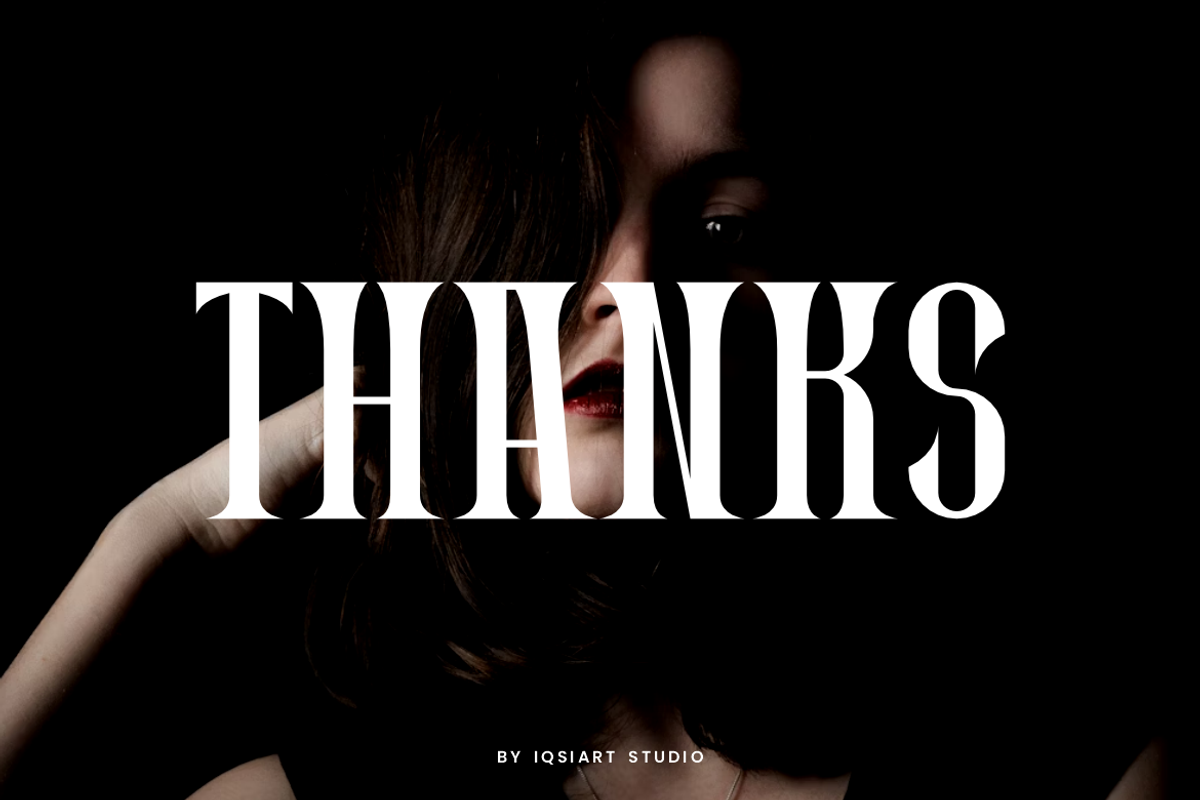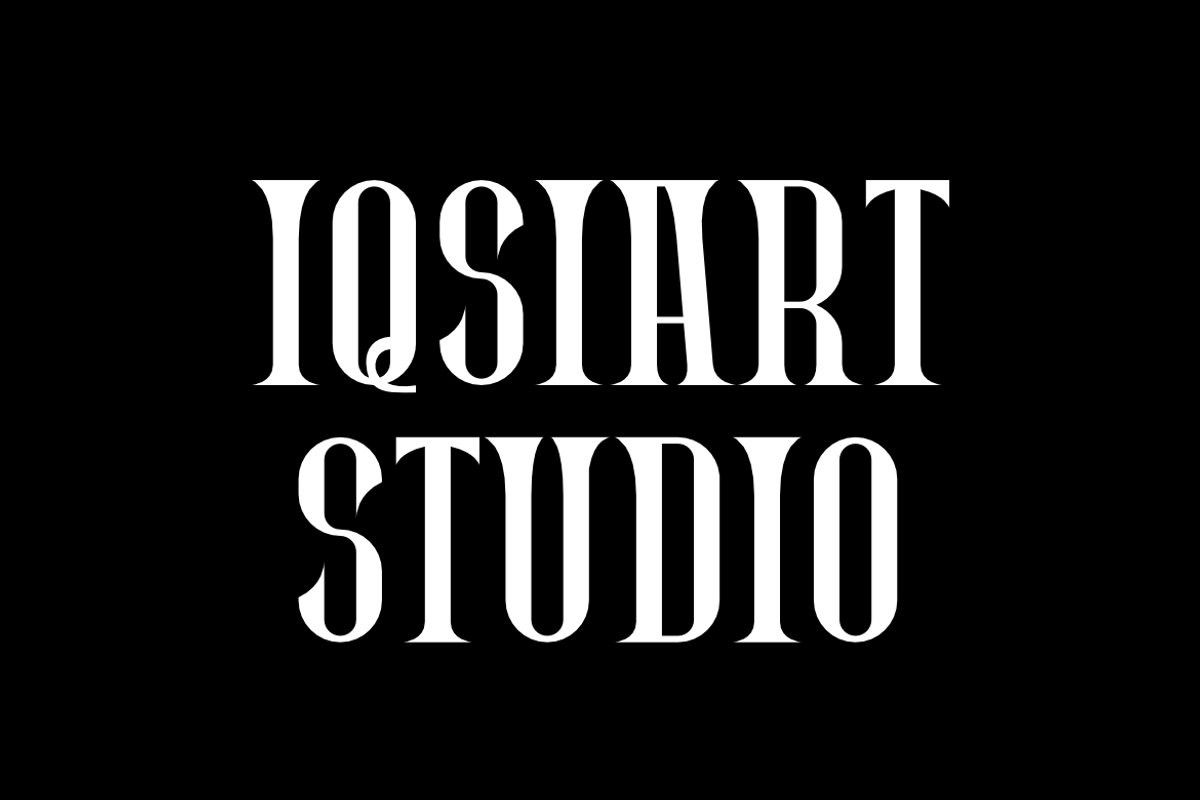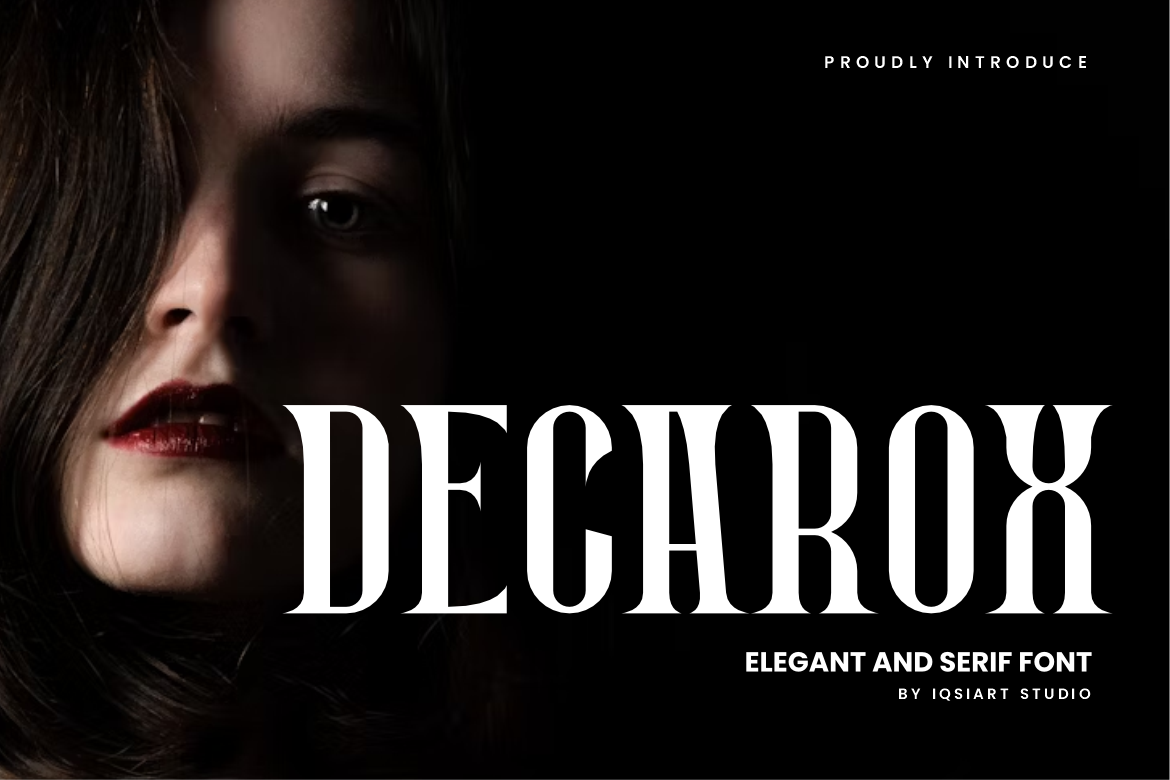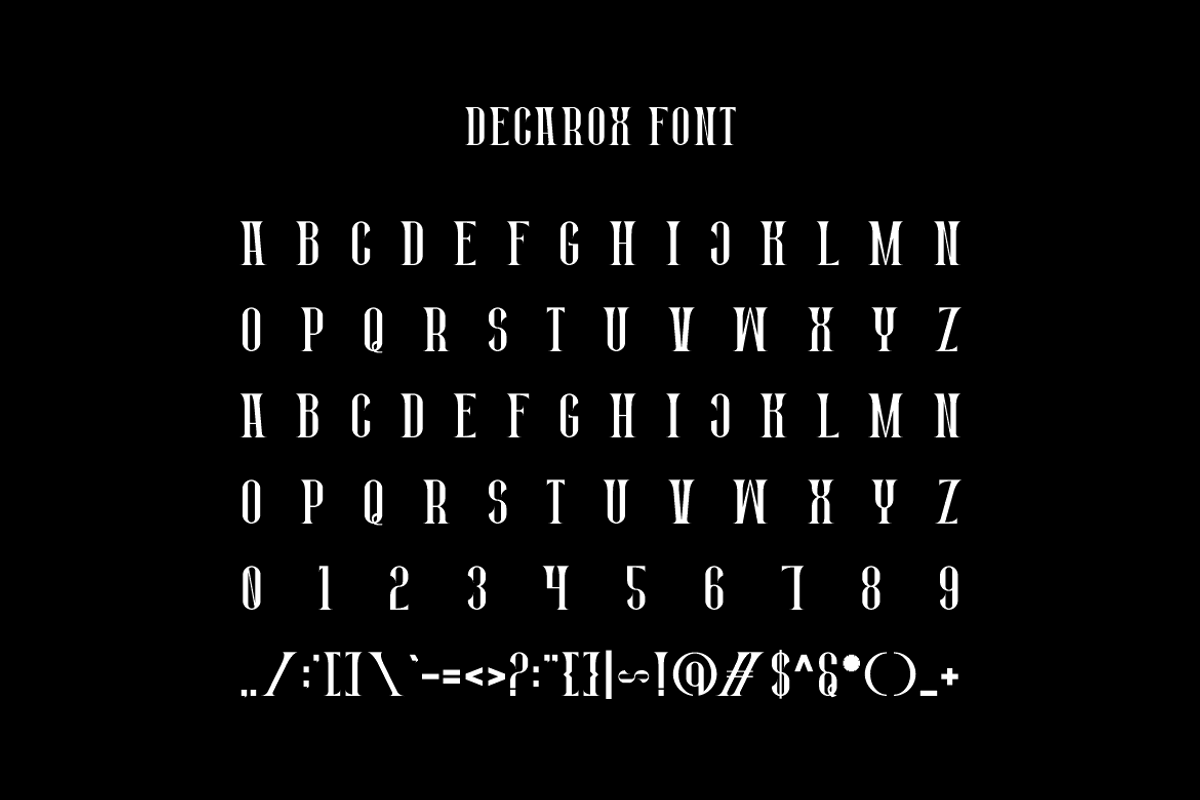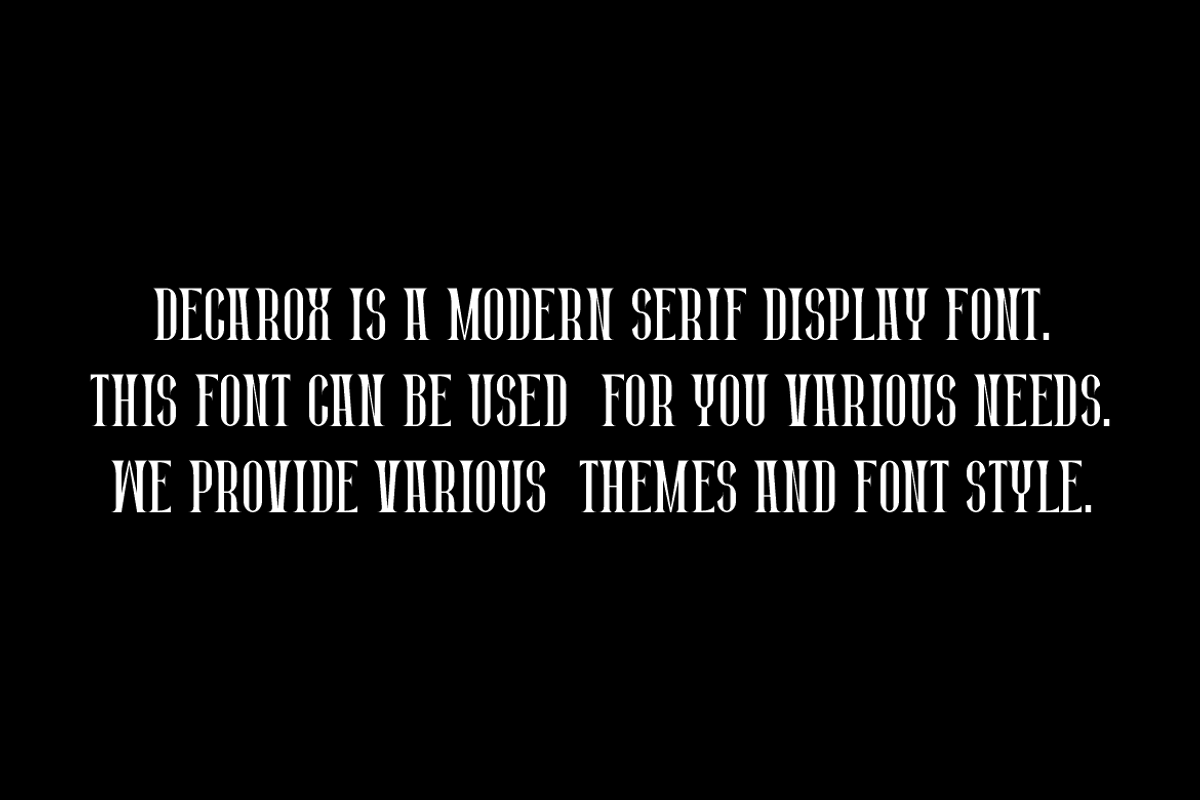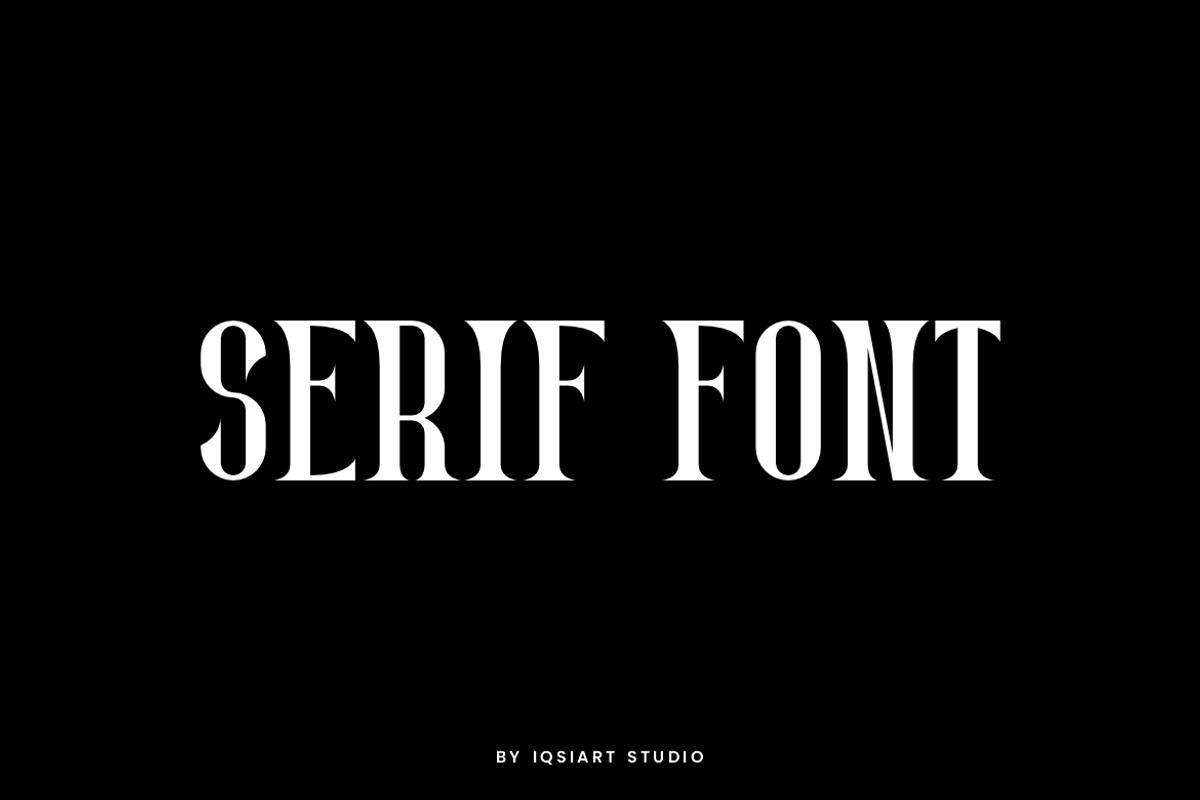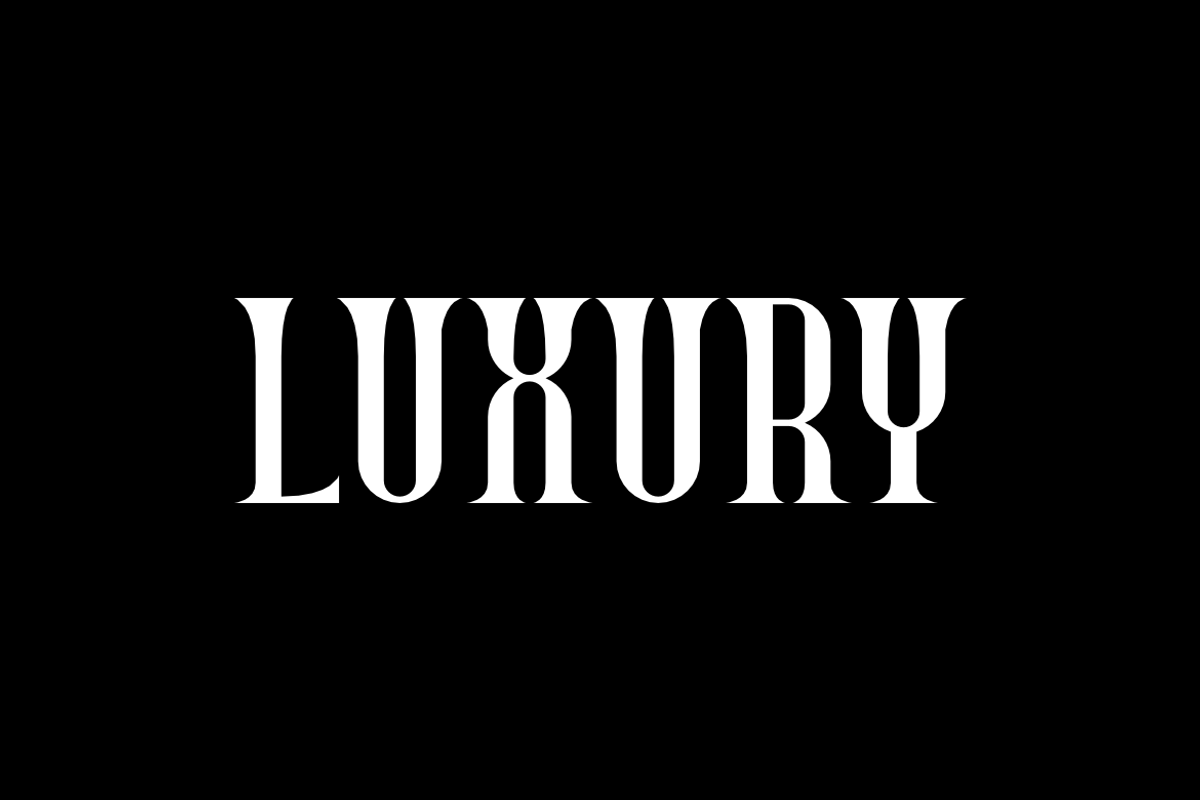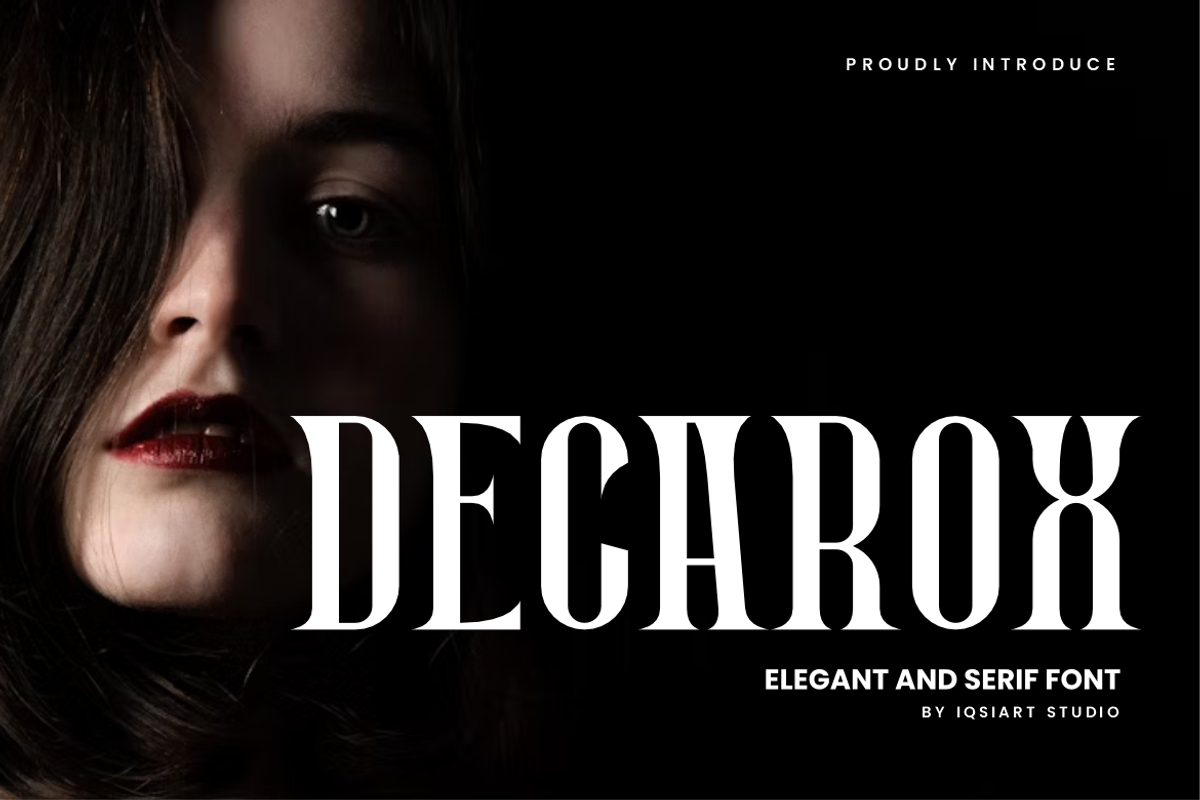
Decarox - Luxury Bold Font
Decarox Font is a best and authentic display font. This font can be used for your various needs. We provide various themes and font styles. visit our profile to get a wide variety of themes and different font styles you need.